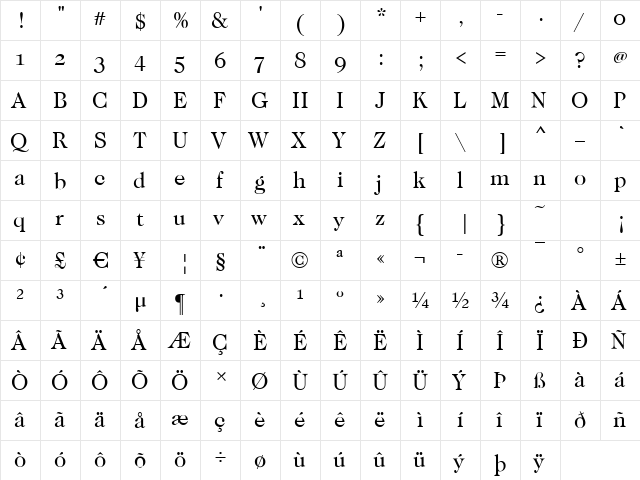
Caslon-Osf Book Font Preview
Caslon-Osf Book
Design Context for Caslon-Osf Typeface
Caslon-Osf takes a measured approach to typography — its balanced proportions and neutral character make it a reliable workhorse for both digital and print work.